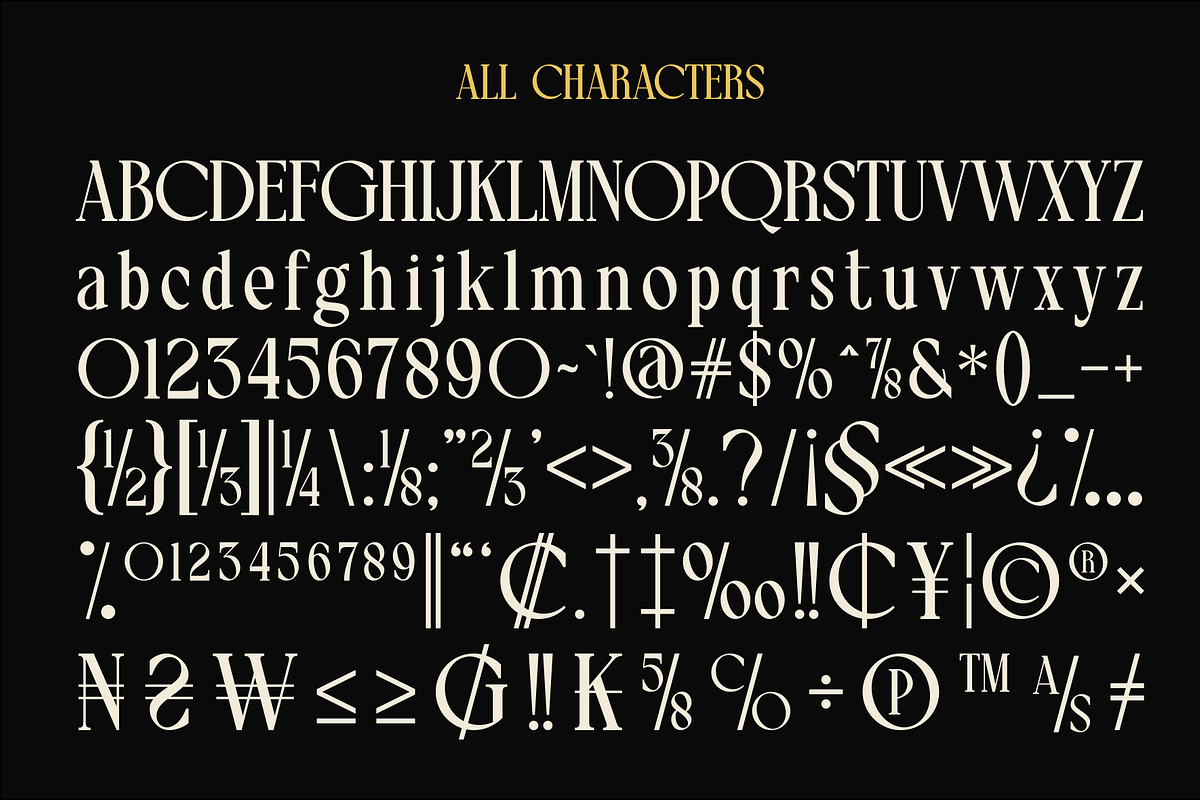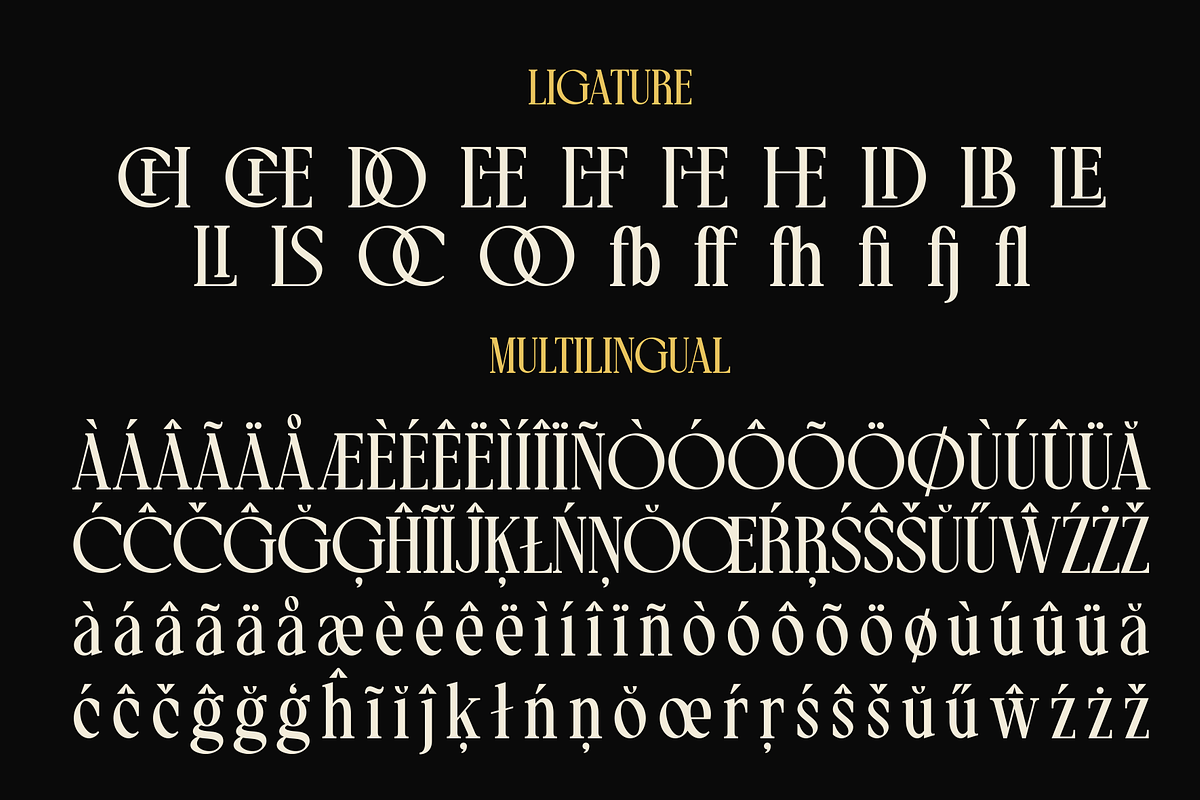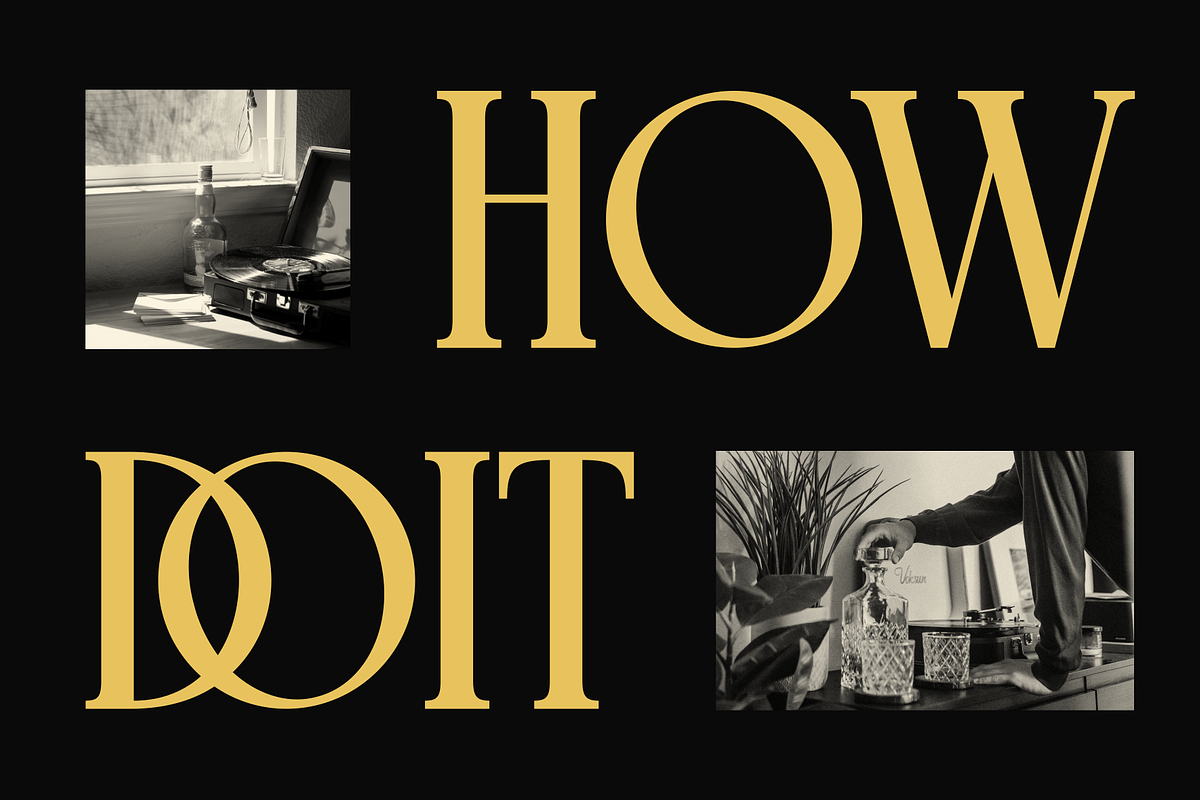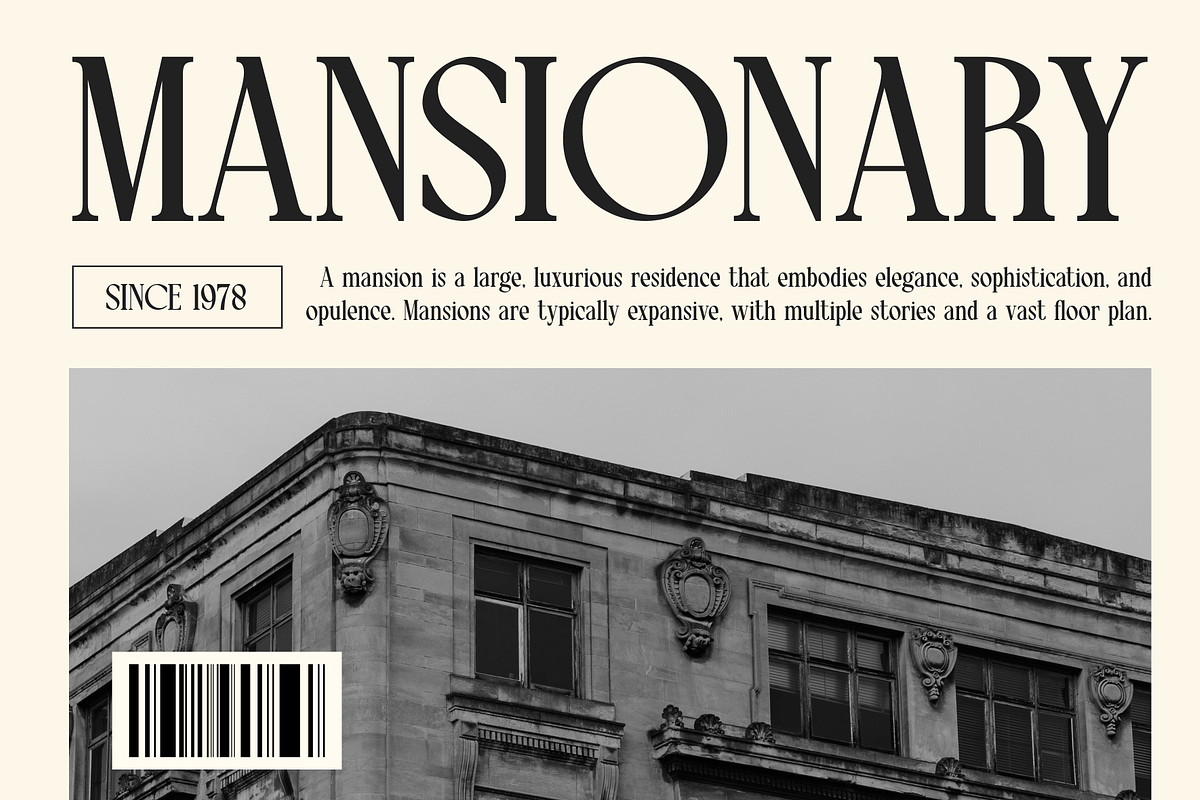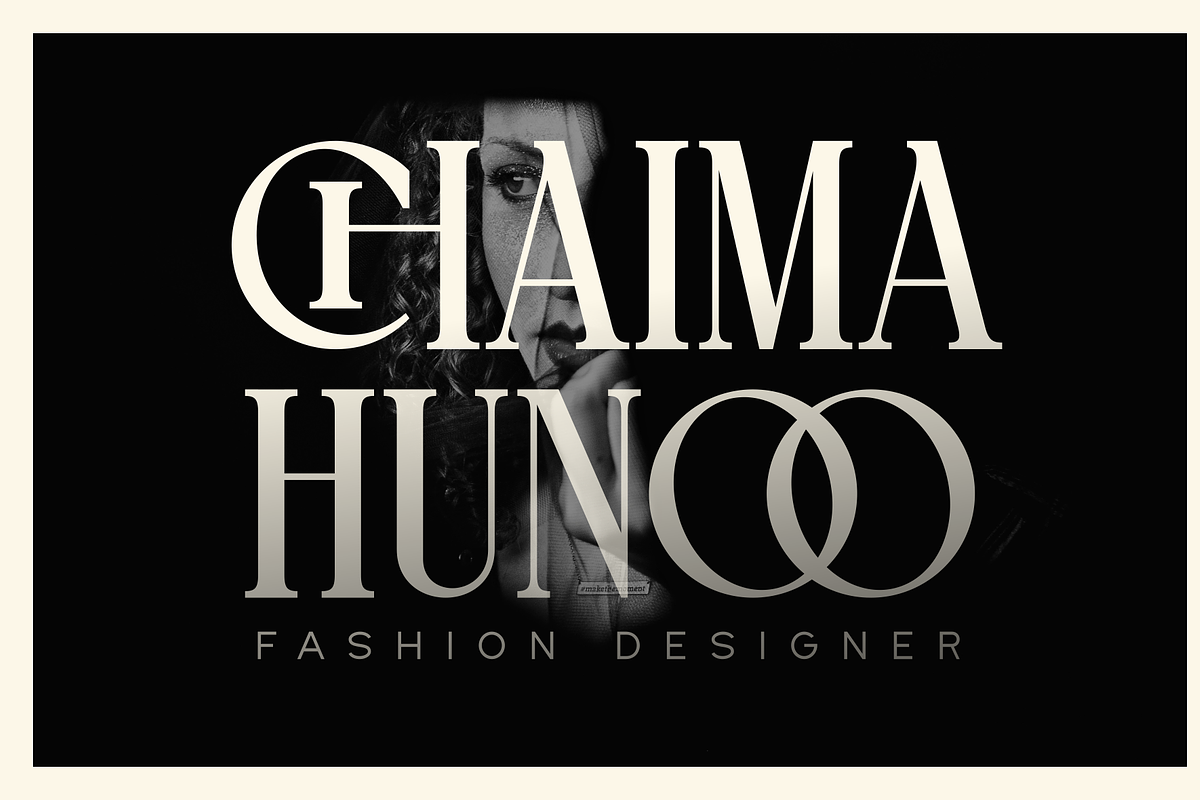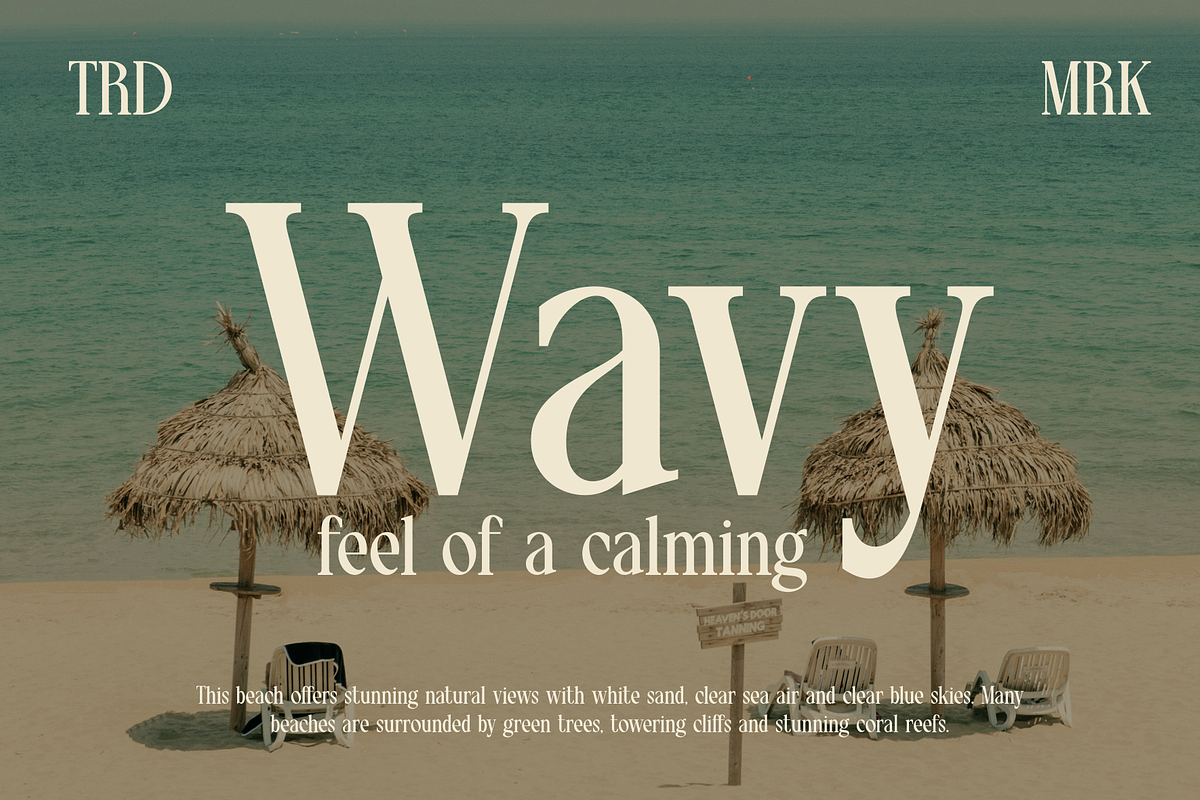
Besoni - Modern Serif Typeface
Introducing our new product Besoni - Modern Serif Typeface
This font features a balanced proportion of stroke thickness and fineness, creating attractive and easy-to-read visuals. This modern serif style is often characterized by a bold distinction between thick and thin lines, providing a touch that is understated but still stands out.